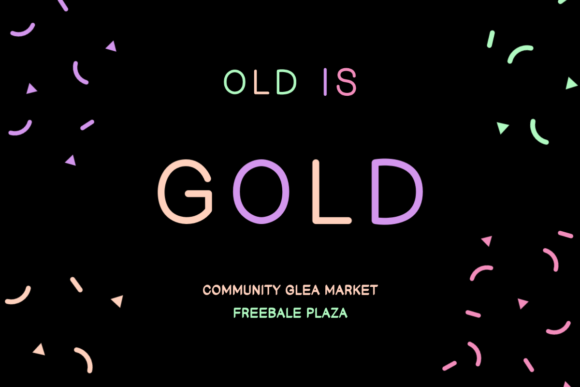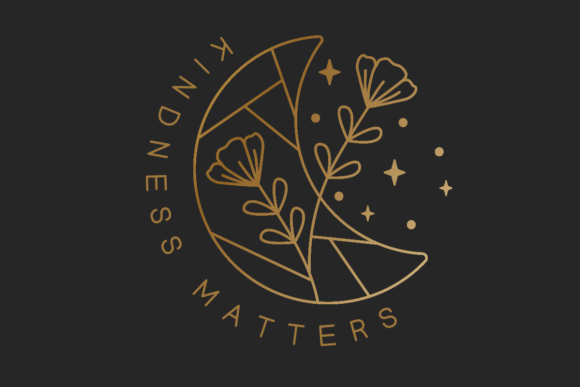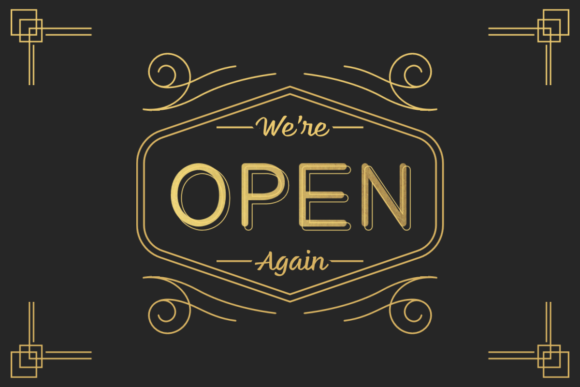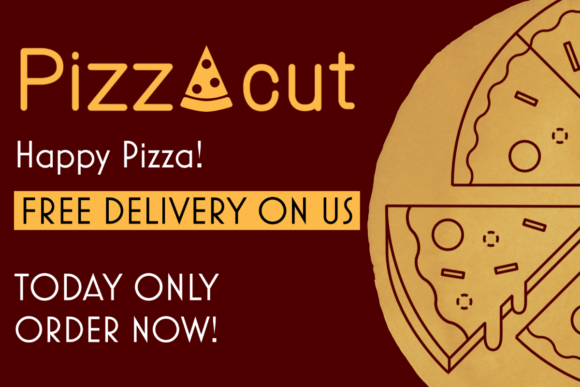
Introducing Elmono Font: The Modern and Clean Sans Serif for Your Designs
Are you on the hunt for a font that can elevate your designs and add a touch of modern sophistication? Look no further than Elmono Font, a stunning sans serif font that is both clean and versatile. With its neat vibe and endless variations, Elmono is the perfect addition to any design project.
What is Elmono Font?
Elmono Font is a modern sans serif font designed to bring a fresh and contemporary feel to your designs. Its clean lines, simple shapes, and elegant curves make it an excellent choice for a wide range of projects, from branding and advertising to packaging and digital media.
Key Features of Elmono Font
- Modern and Clean Design: Elmono Font boasts a sleek and modern design that is both visually appealing and highly legible.
- Versatility: With its wide range of variations, Elmono Font can be used for a variety of design projects, from headings and titles to body text and more.
- Neat Vibe: The font’s neat and organized feel makes it perfect for designs that require a professional and polished look.
- Endless Variations: Experiment with different font sizes, colors, and styles to create unique and eye-catching designs.
Why Choose Elmono Font?
So, why should you choose Elmono Font for your design projects? Here are just a few reasons:
- Easy to Read: Elmono Font is highly legible, making it perfect for body text and other applications where readability is key.
- Highly Versatile: Whether you’re designing a logo, brochure, or website, Elmono Font can adapt to any design style or theme.
- Unique and Creative: With its modern and clean design, Elmono Font can add a touch of creativity and originality to your designs.
- Time-Saving: With Elmono Font, you can create professional-looking designs in no time, saving you time and effort.
How to Use Elmono Font
Using Elmono Font is easy and straightforward. Here are a few tips to get you started:
- Pair it with Other Fonts: Experiment with pairing Elmono Font with other fonts to create unique and interesting typography.
- Play with Font Sizes: Vary font sizes to create visual hierarchy and add emphasis to your designs.
- Experiment with Colors: Try out different colors and color combinations to add depth and interest to your designs.
- Use it for Headings and Titles: Elmono Font is perfect for headings and titles, adding a touch of modern sophistication to your designs.
Design Inspiration with Elmono Font
Still looking for inspiration? Here are a few design ideas to get you started:
- Branding and Logo Design: Use Elmono Font to create a modern and professional logo that stands out.
- Advertising and Marketing: Elmono Font is perfect for advertising and marketing materials, such as brochures, flyers, and posters.
- Packaging Design: Add a touch of modern sophistication to your packaging designs with Elmono Font.
- Digital Media: Use Elmono Font to create engaging and modern digital media, such as website headers, social media graphics, and more.
| Font Name | Elmono Font |
In conclusion, Elmono Font is a modern and clean sans serif font that is perfect for designers and crafters looking to elevate their designs. With its versatility, neat vibe, and endless variations, Elmono Font is sure to brighten up any design project. So why wait? Download Elmono Font today and start creating stunning designs that stand out!